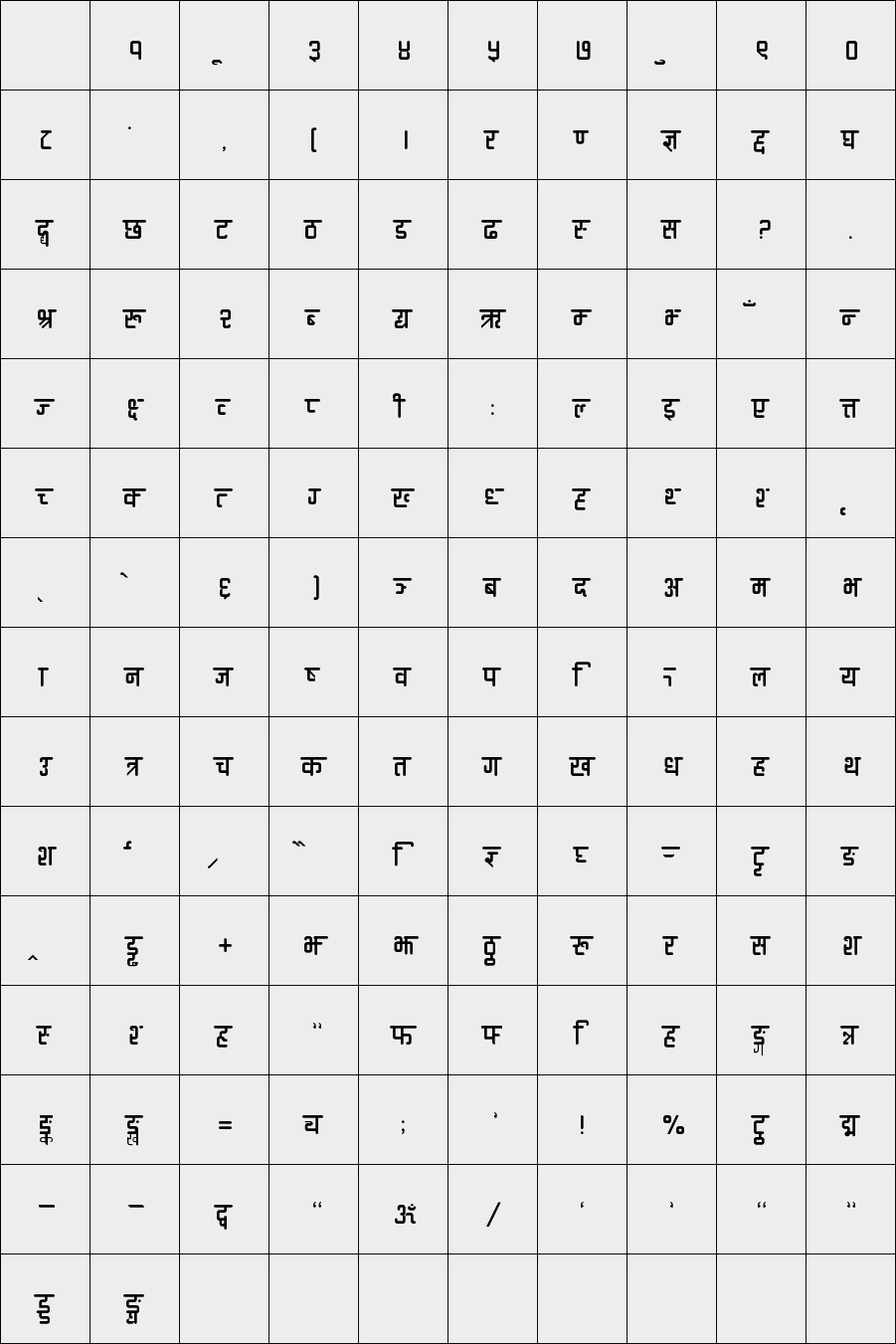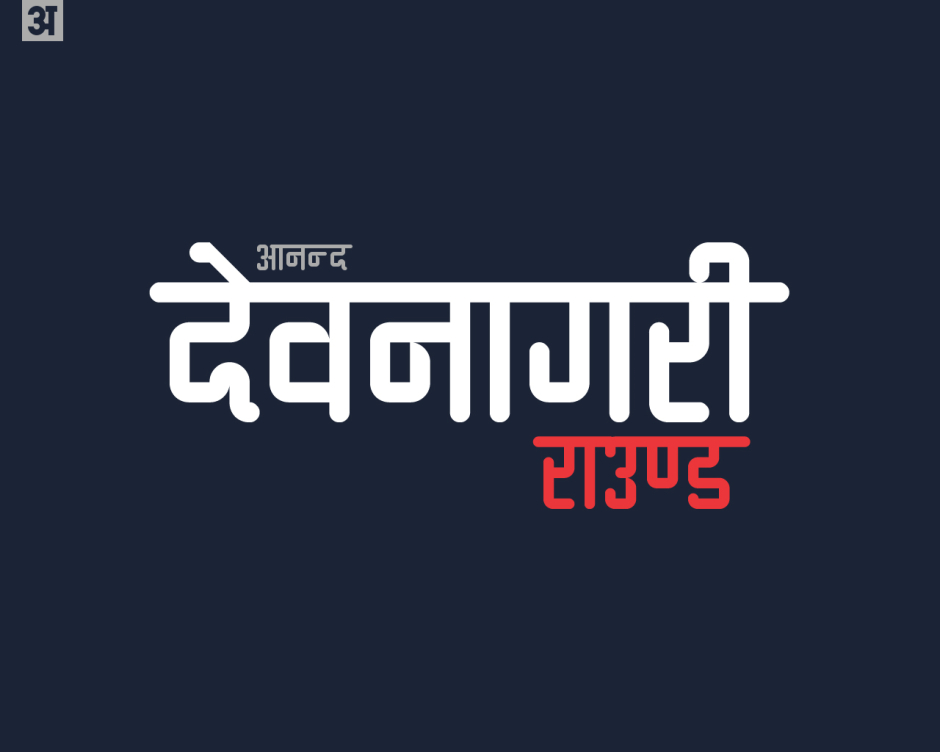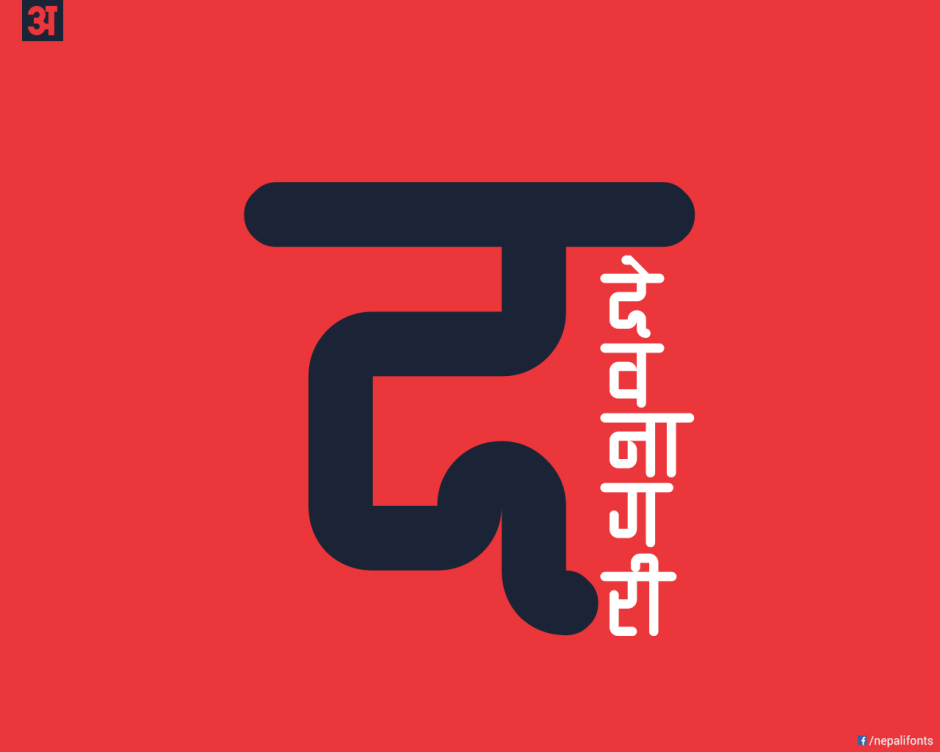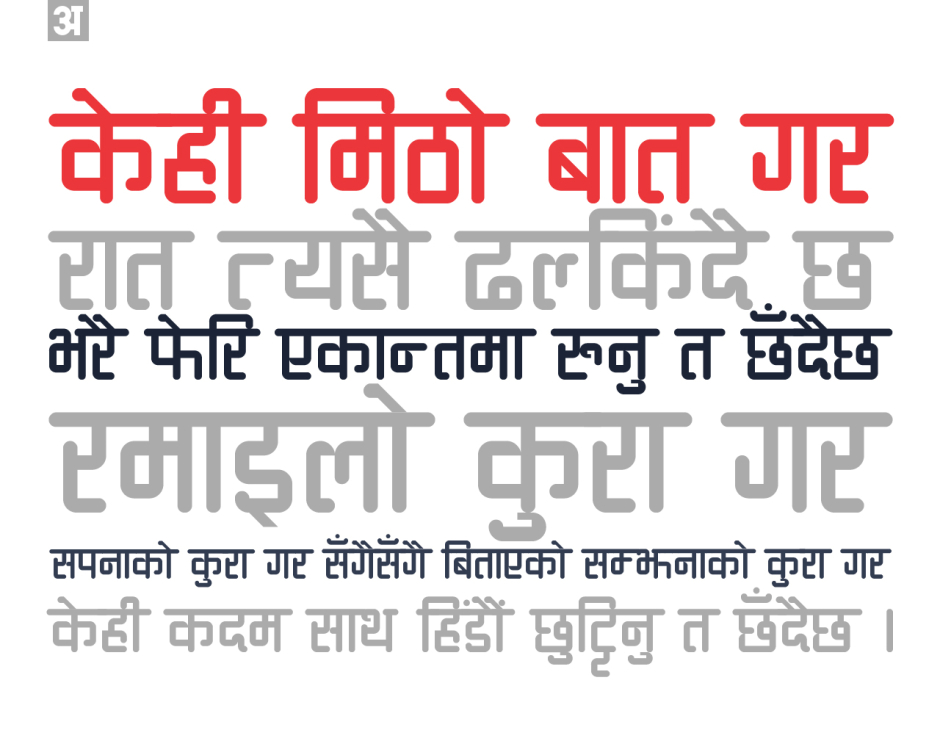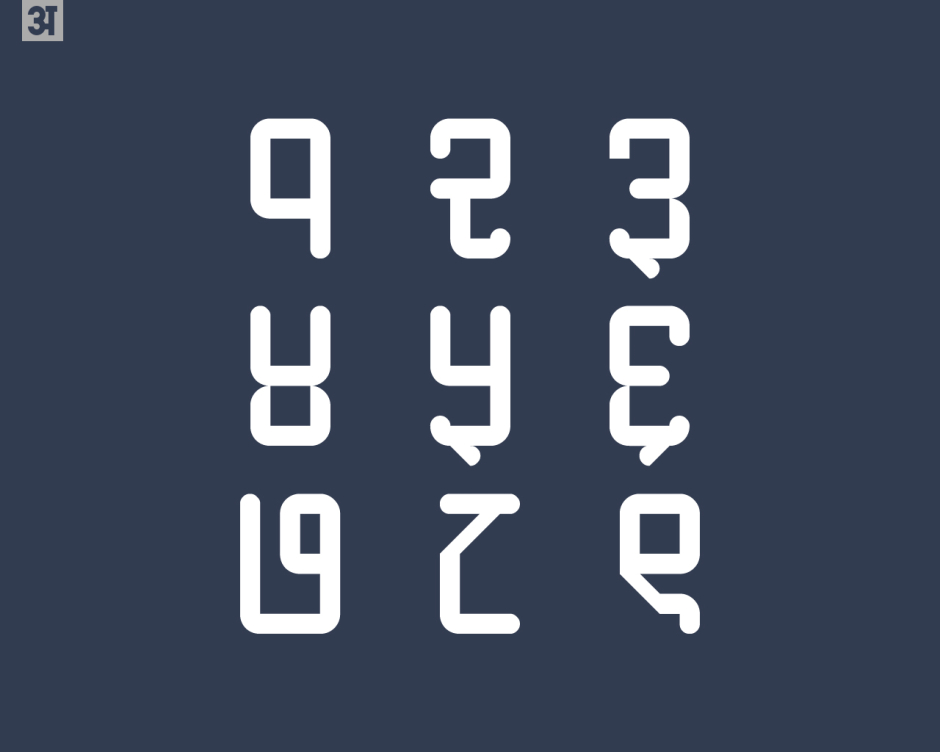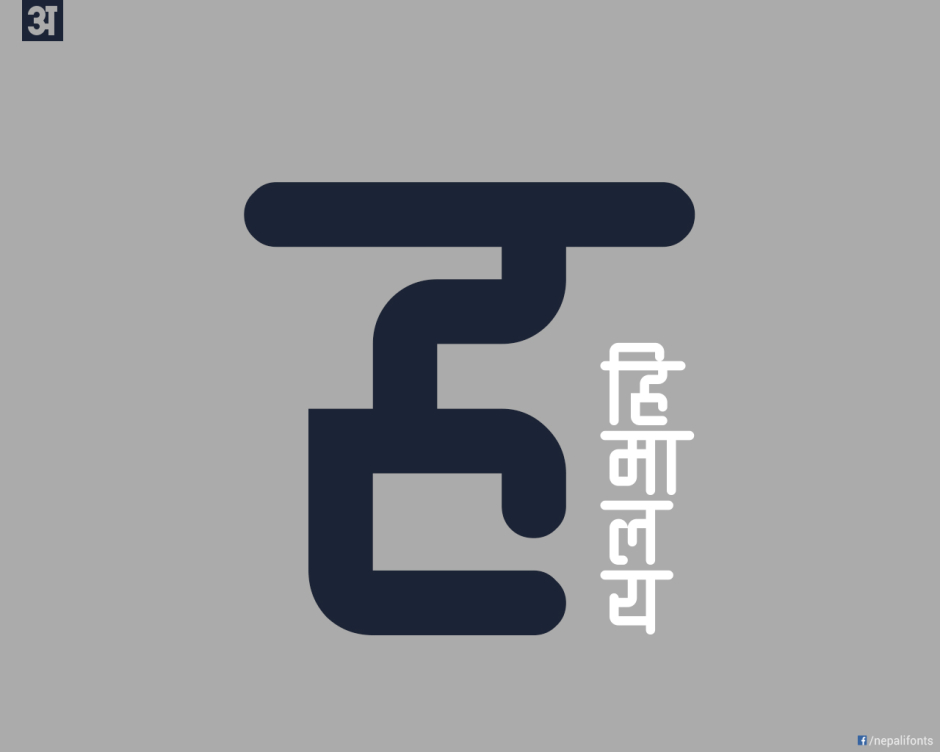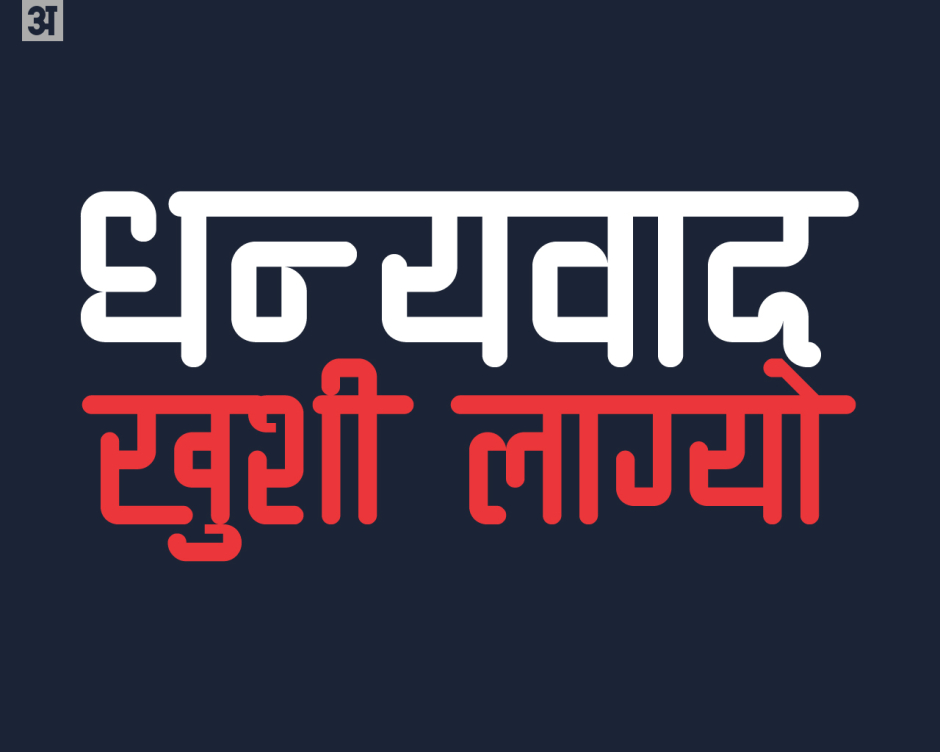
Ananda Devanagari Round
"Ananda Devanagari Round" is a grid-based rounded font. It's non-unicode Devanagari font based on traditional Nepali keyboard layout.
Designer: Ananda K. Maharjan